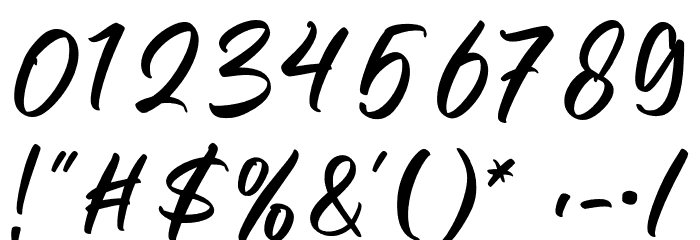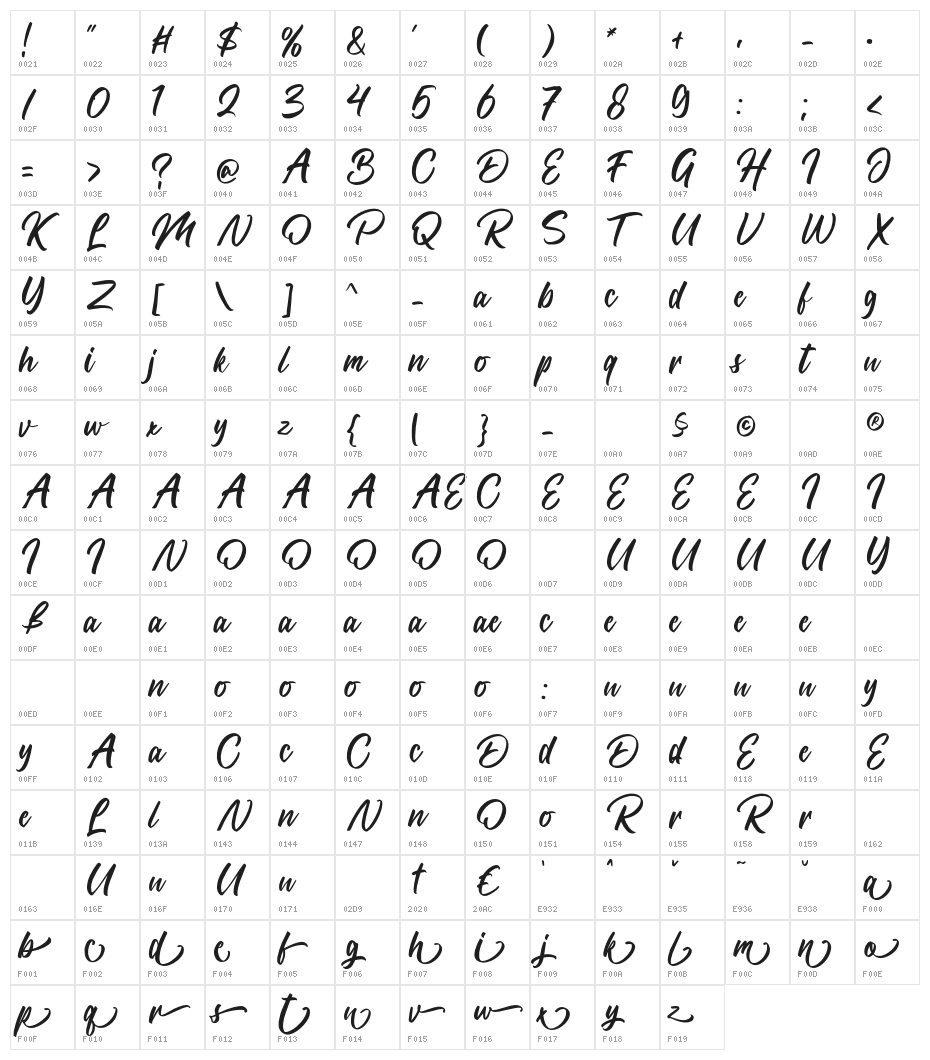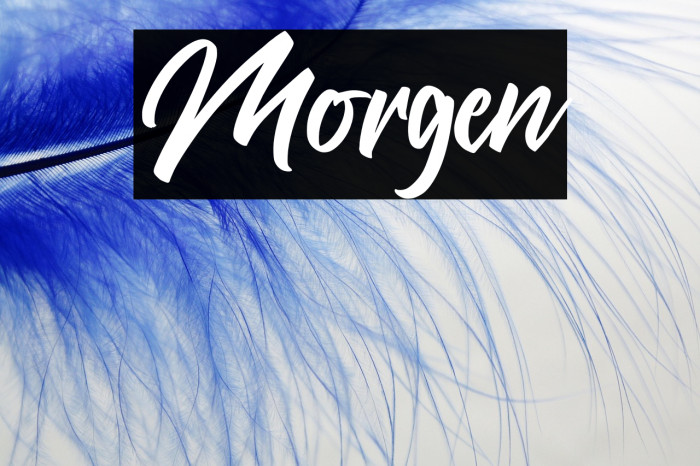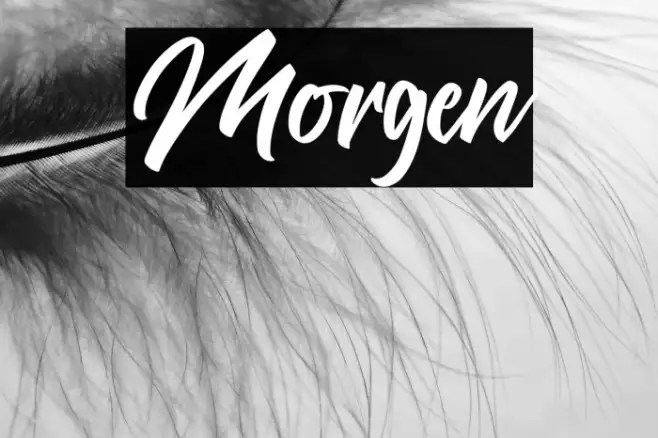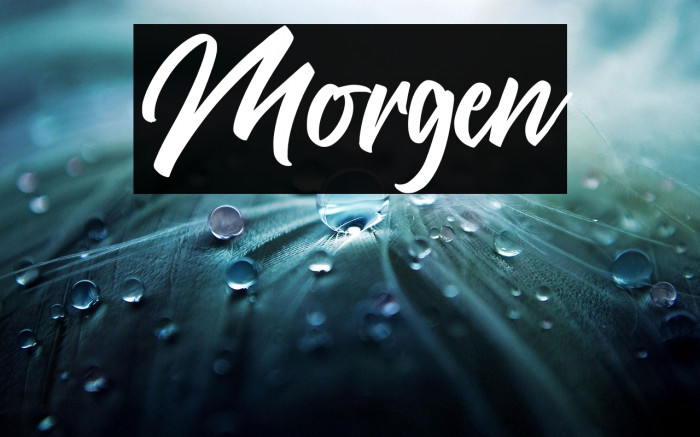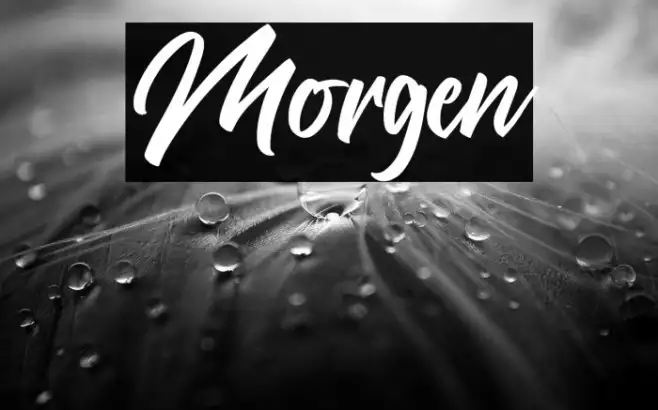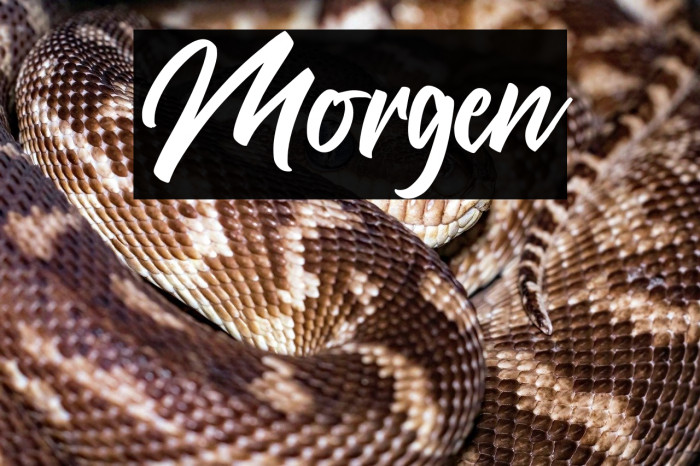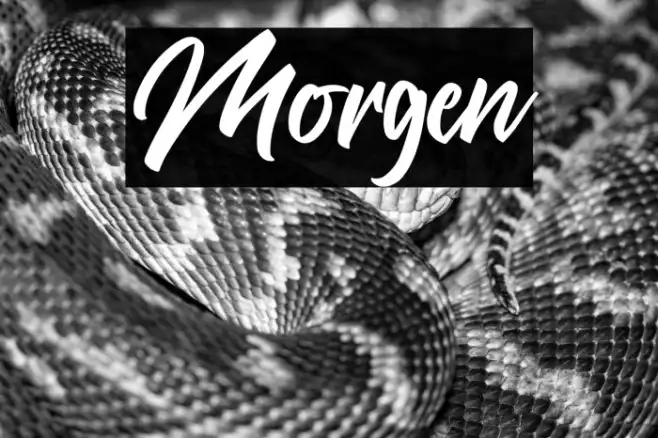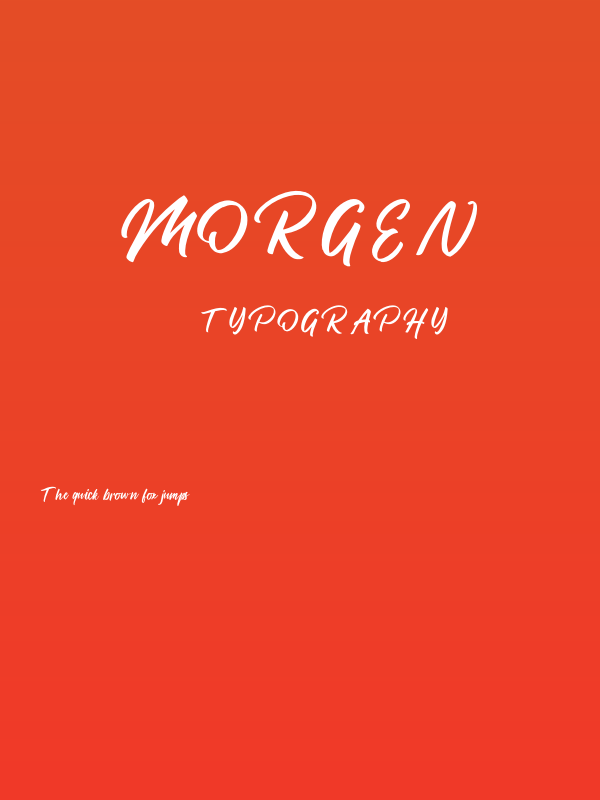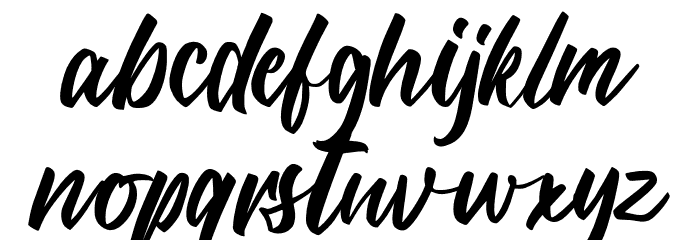
Morgen Font
Morgen Description
This font exudes a dynamic and energetic feel with its bold, cursive style. The letters are fluid and connected, giving a sense of movement and flow. The uppercase characters maintain a consistent height, while the lowercase letters exhibit a playful bounce, adding to the overall lively appearance. The numbers and special characters are designed to match the cursive style, ensuring a cohesive look across all elements. The strokes are thick and confident, making the font highly legible even at smaller sizes. This font is perfect for projects that require a personal touch or a sense of elegance and flair.
| Proposed Projects | Ideal for wedding invitations, greeting cards, branding, and social media graphics. |